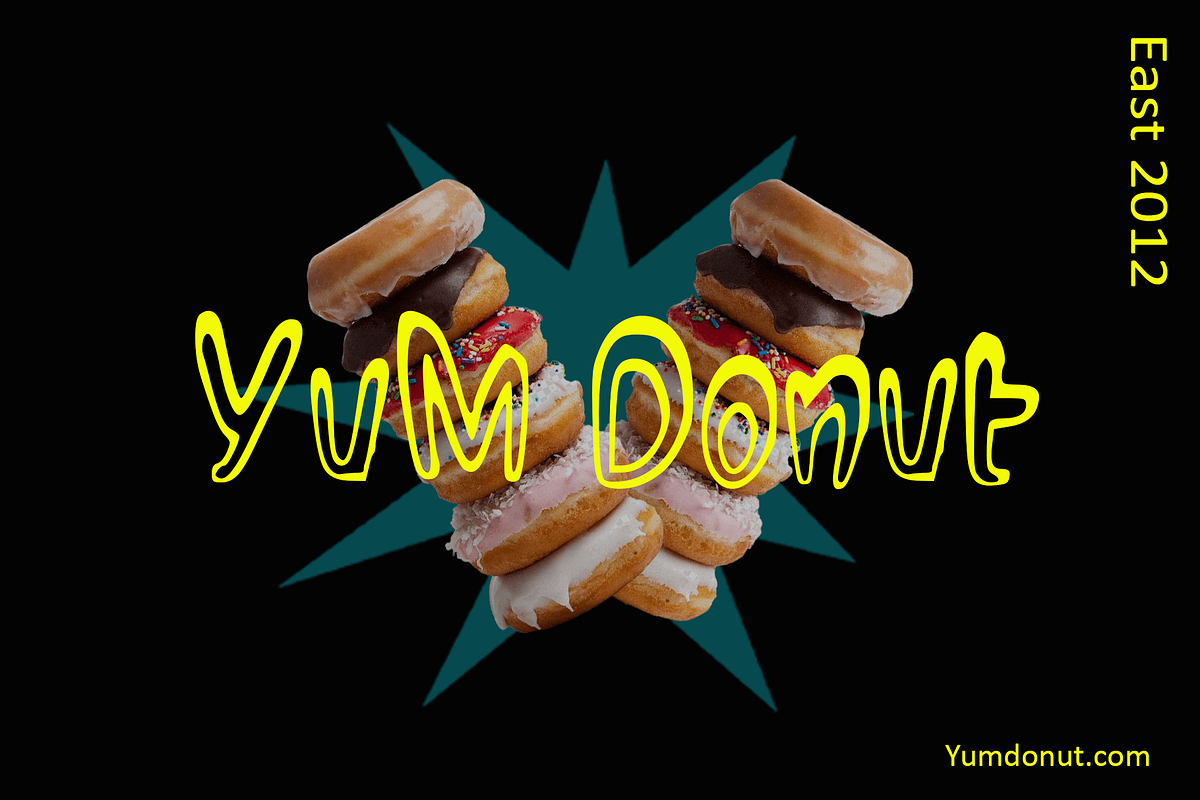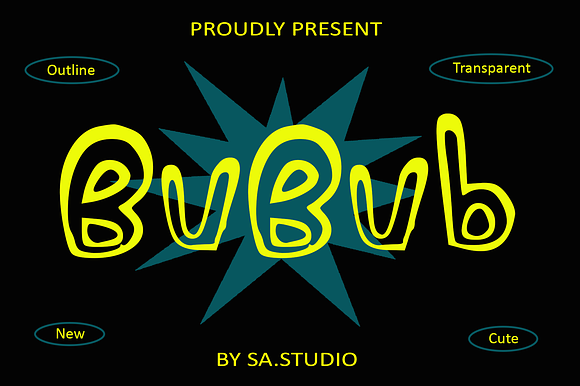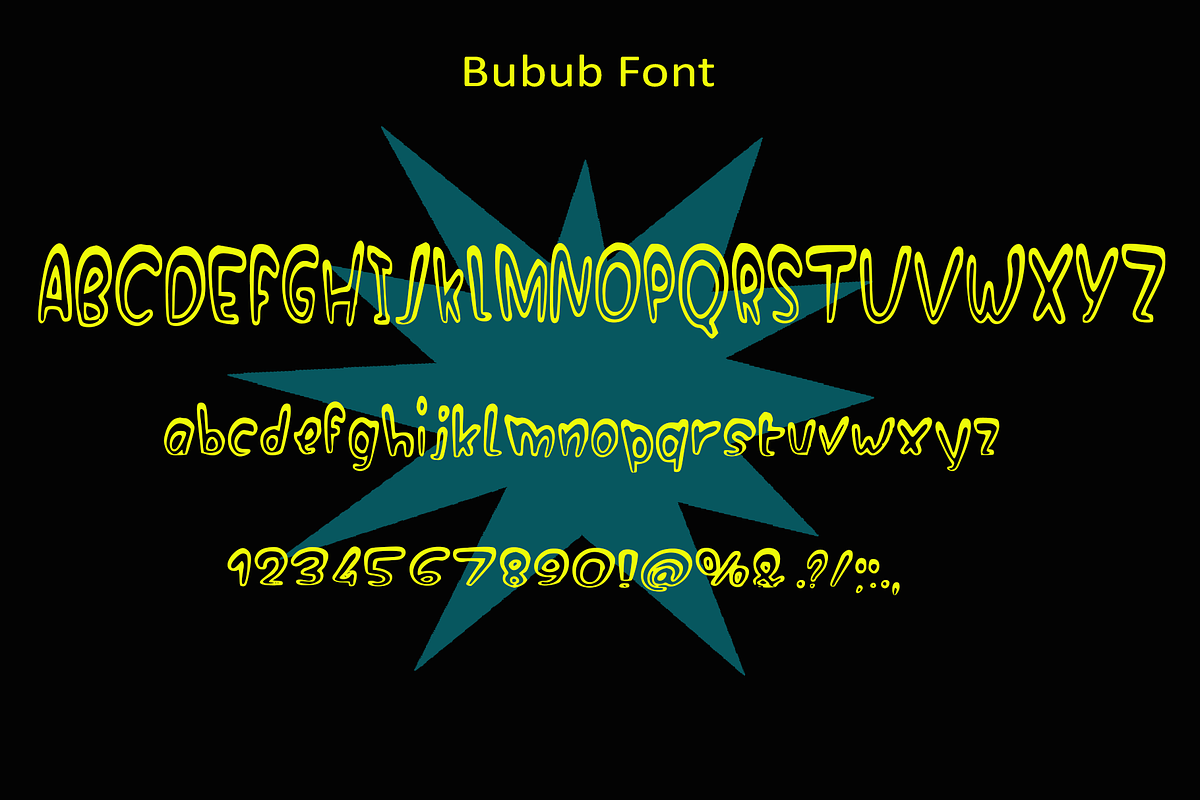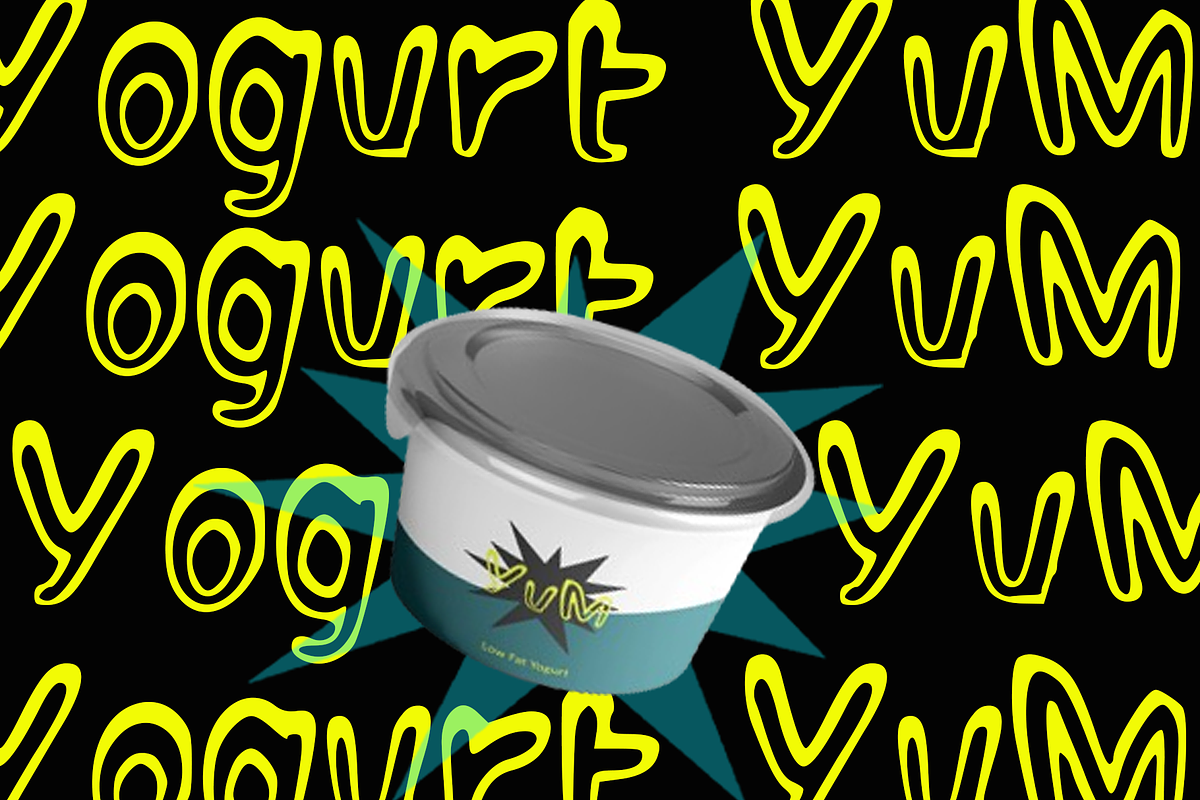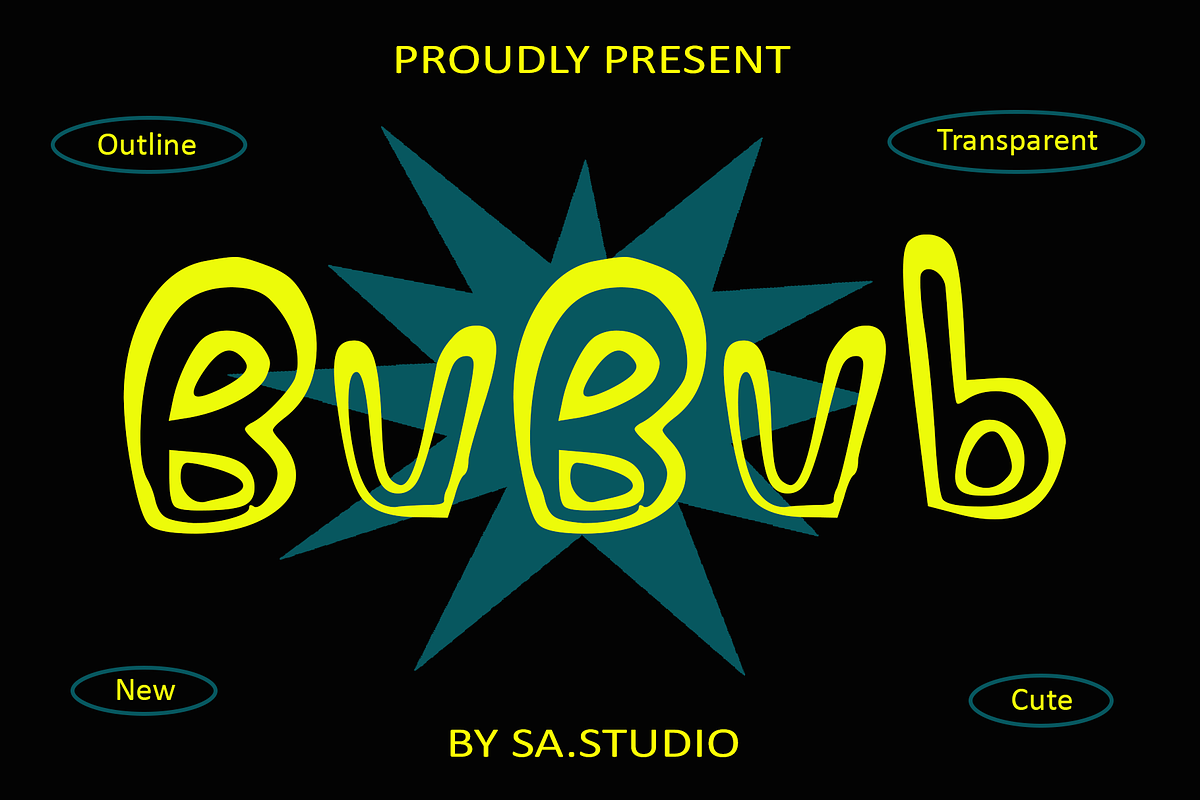
Bubub Font
Handwriting font is a modern typography.
Why Bubub Font is worth a look
Bubub Font by SaStudio fits naturally into Branding, posters, packaging, typography.